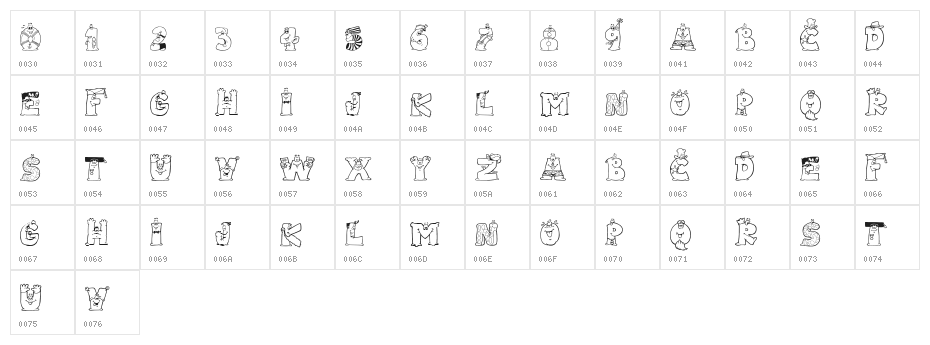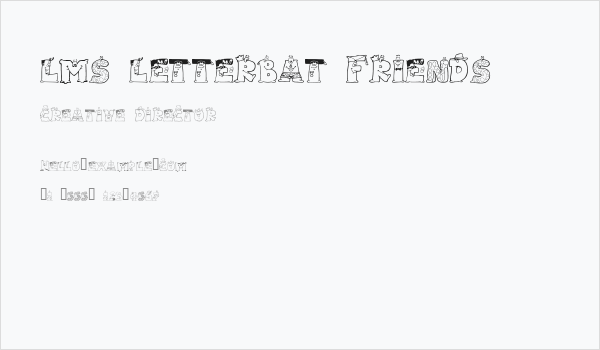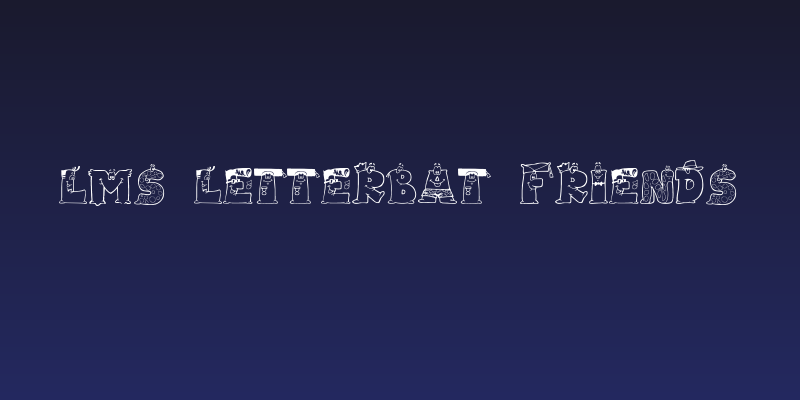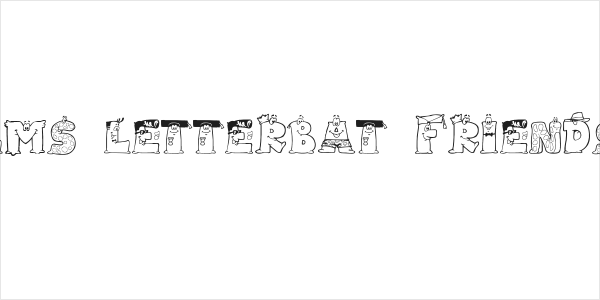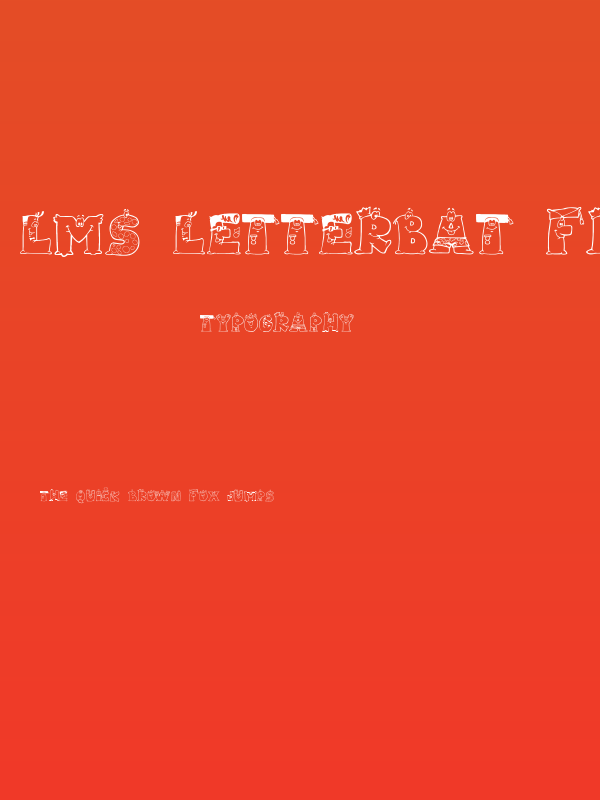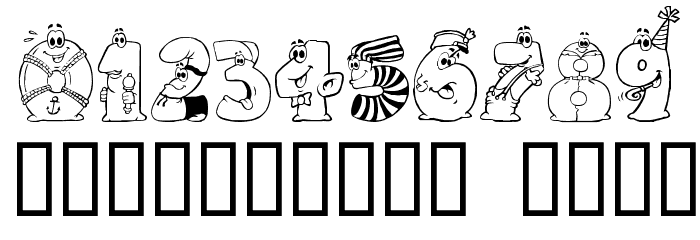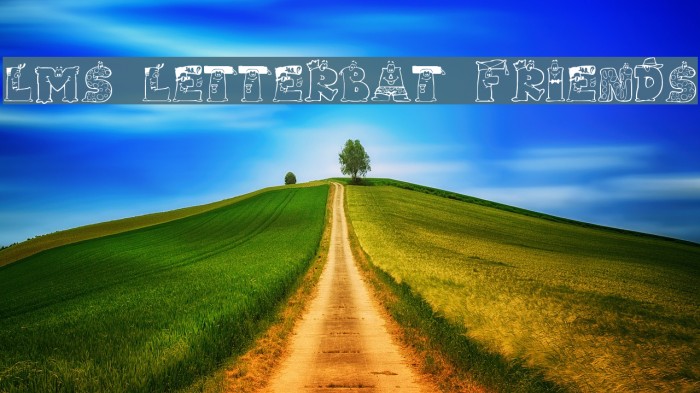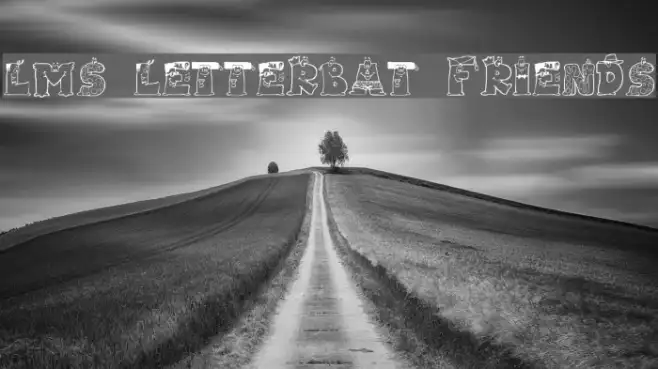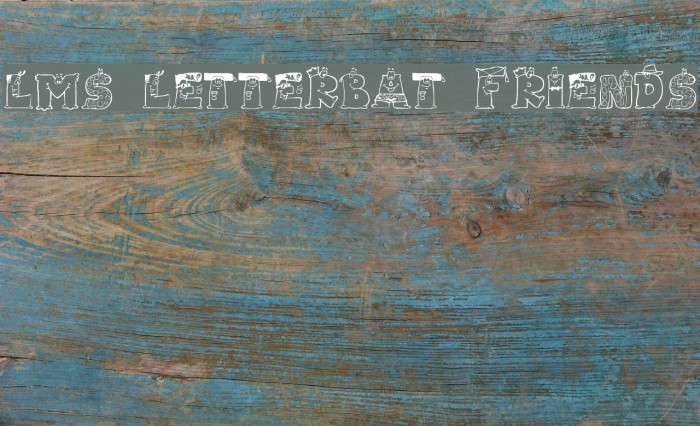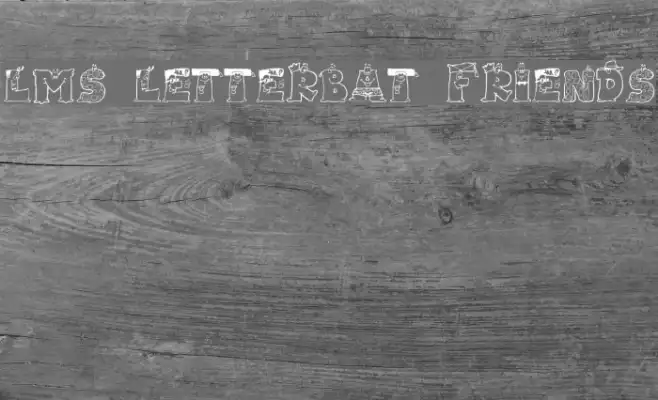
LMS Letterbat Friends Font
LMS Letterbat Friends Description
This playful and whimsical font features characters that are creatively integrated with cartoon-like figures. Each letter and number is adorned with unique, friendly characters that give a sense of fun and imagination. The design is highly decorative, with each character having its own distinct personality, making it ideal for projects aimed at children or for adding a humorous touch. The font is not uniform in style, as each letter and number has its own distinct embellishments, such as hats, stripes, or facial expressions. This adds to the overall charm and appeal, making it a standout choice for creative projects.
| Proposed Projects | Ideal for children's books, playful invitations, educational materials, and creative posters. |